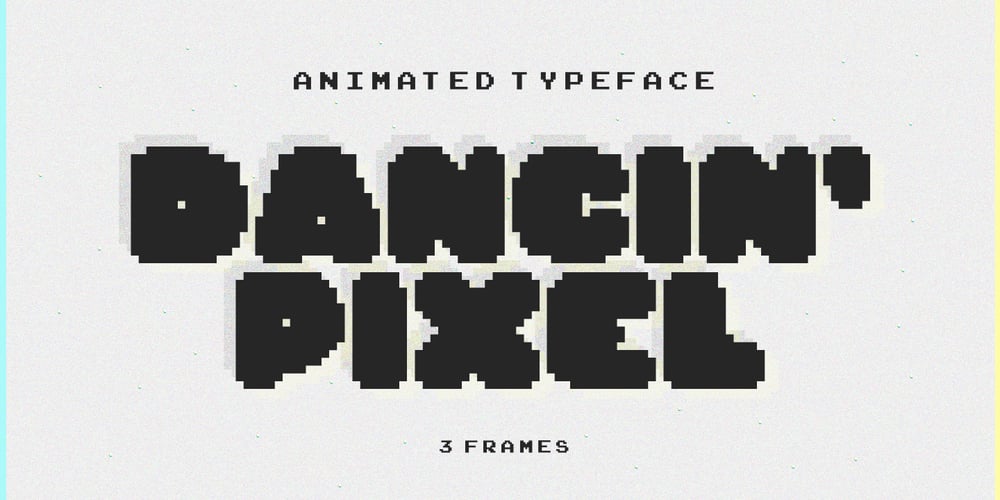
Dancin’ Pixel Font Family was designed by Vladimir Tsagolov and published by LomoHiber. Dancin’ Pixel contains 3 styles and family package options. Why is this typeface ‘Dancin’? Because It consists of 3 styles each represents one frame of animation. And you can easily create a nice pixel typography animation using Dancin’ Pixel. Animation preview: https://www.behance.net/gallery/85743031/Dancin-Pixel-animated-typeface How to make the animation and add a sharp corner stroke in Photoshop: https://youtu.be/ZbVFzvXwqkw If you are not interested in making animation, you can also use Dancin’ Pixel as a regular font. I combined hand-drawn bold letters with pixel style, and it perfectly fits for stylish pixel game headers, prints, posters, websites, and anything connected with pixel art. The Frame Three is great for glitched pixel designs, it has distorted shapes.Dancin’ Pixel Features: Pixelated letterforms 3 Styles each representing one frame of animation 3rd and 2nd frame may be used as glitched pixel typeface Wide language support (Western European, Central European South Eastern European) If you have some issues, questions, please let me know: lhfonts@gmail.comHope you’ll enjoy using Dancin’ Pixel!